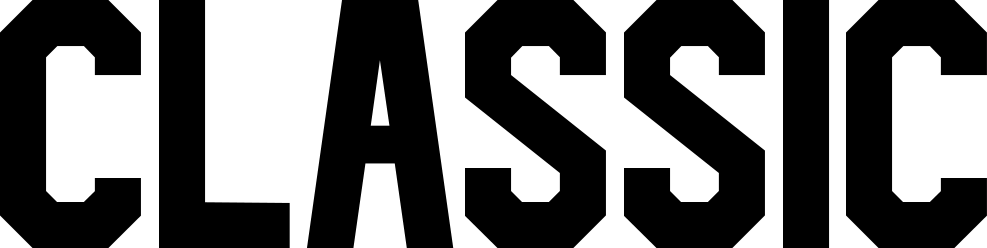
Classic Font
One of the most powerful emotions you can use to impress people is nostalgia. For example, by using Classic, you can convey the old feeling to the audience. Classic is an American bold font that does not support lowercase letters. Using this American classic font for designing movie brochures and banner ads is very ideal and has high efficiency.